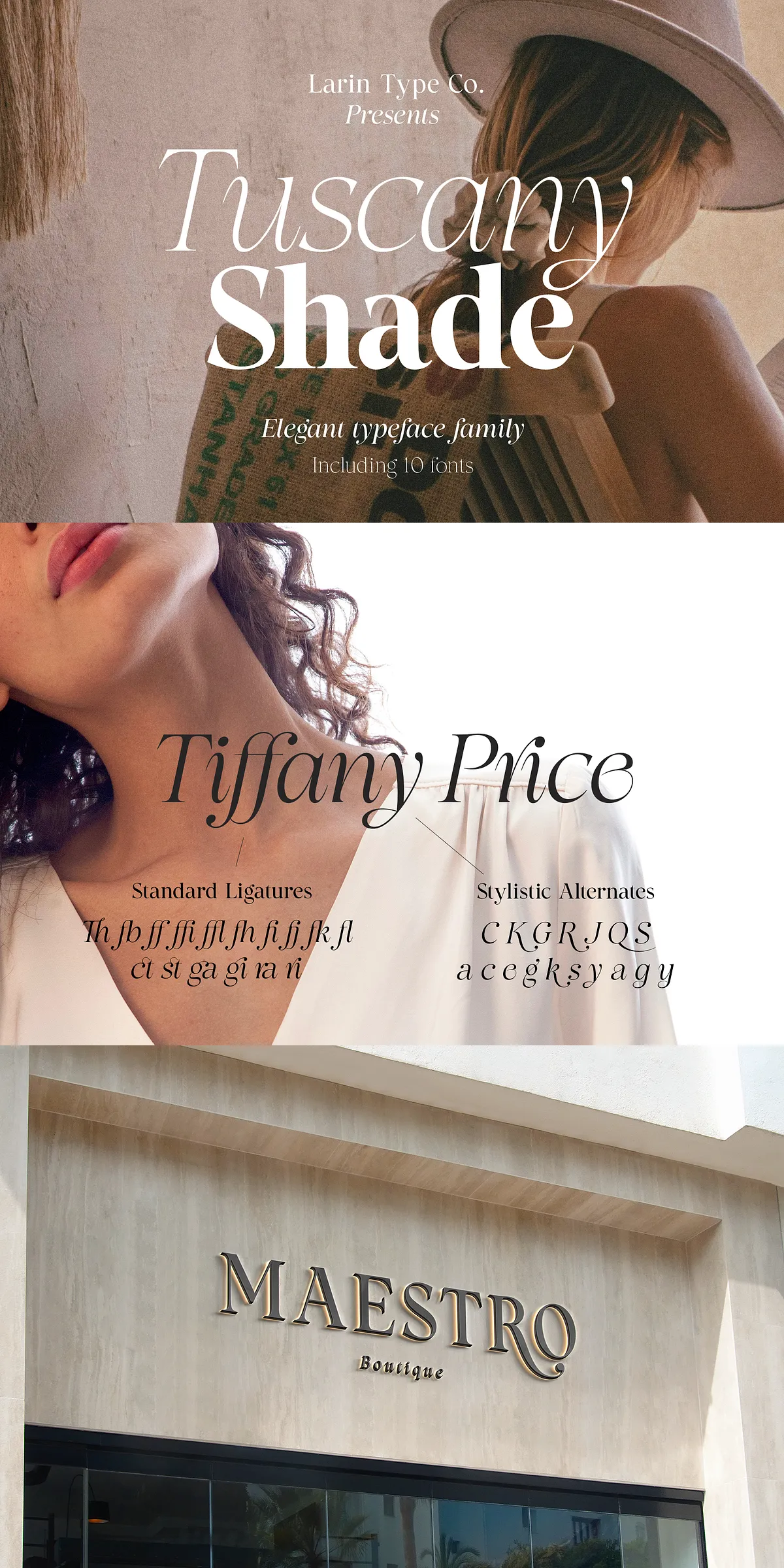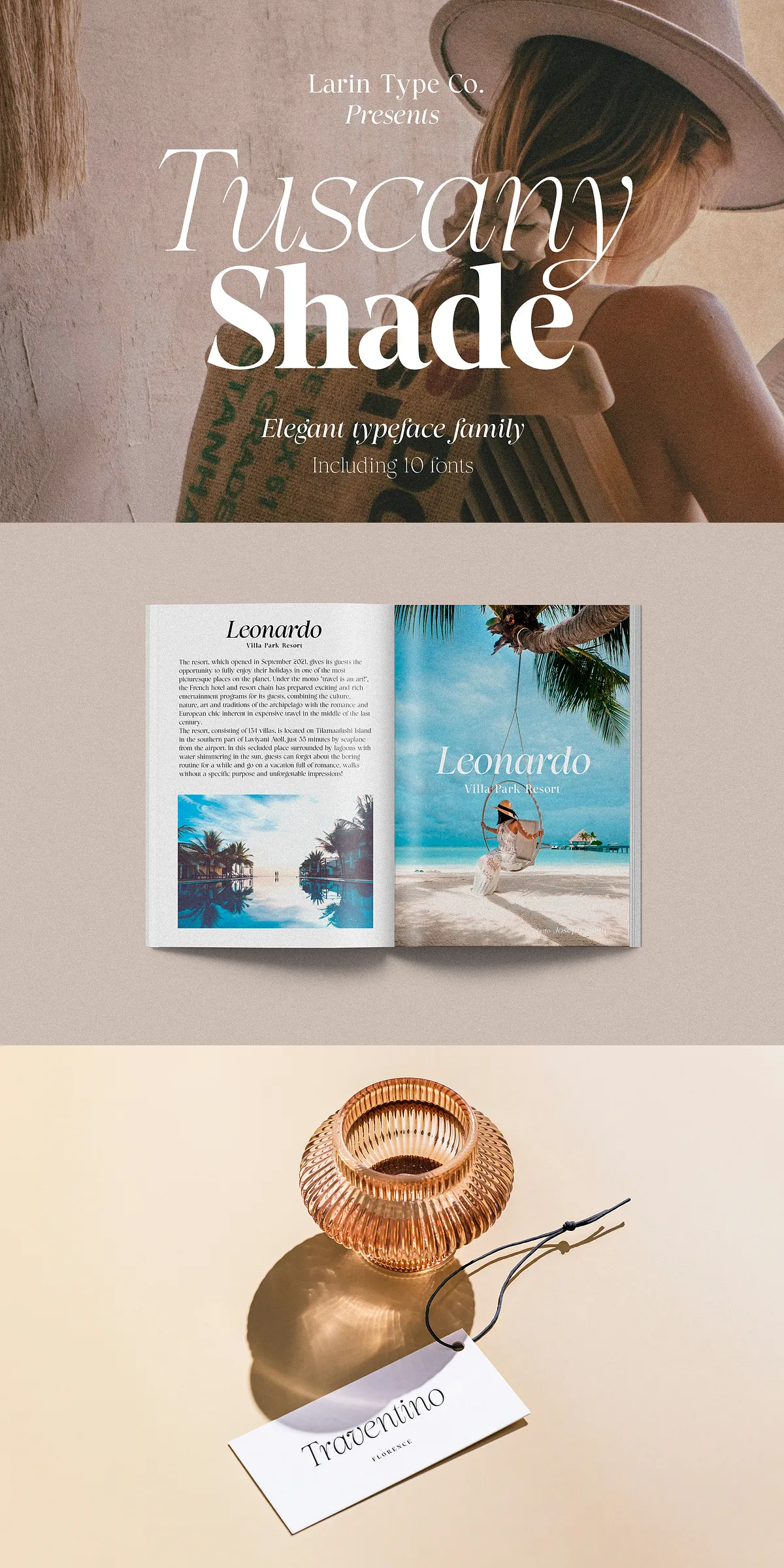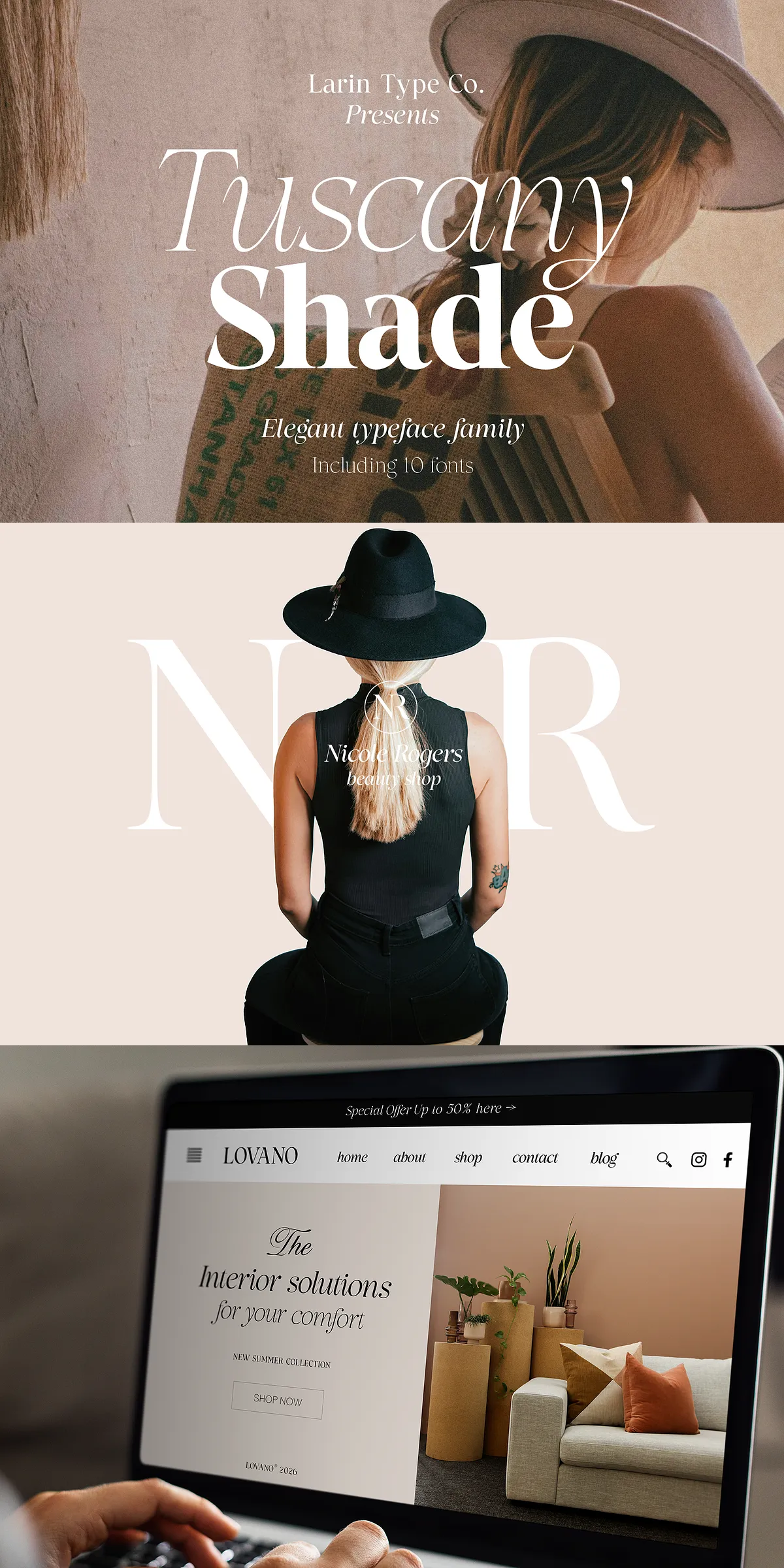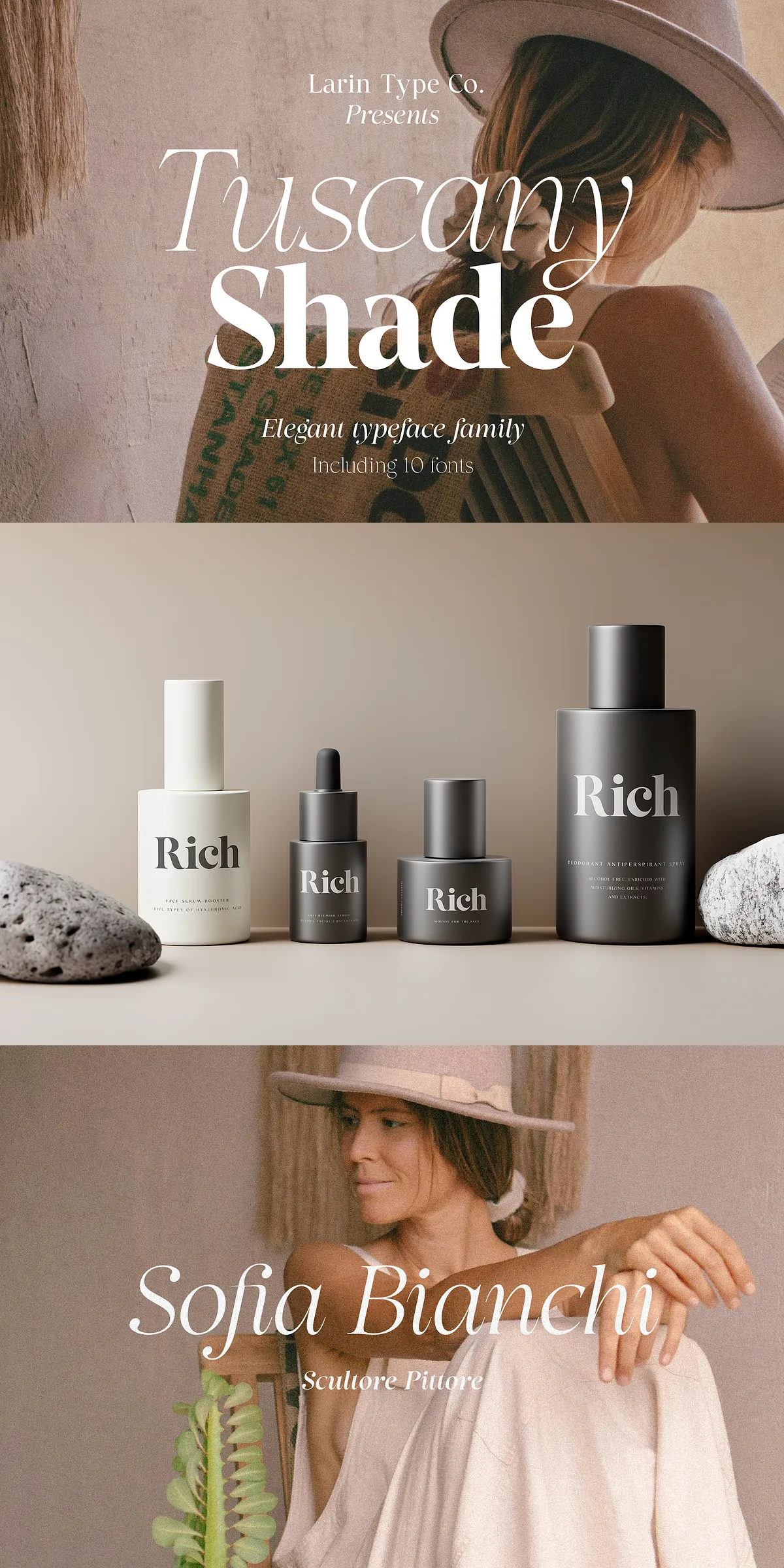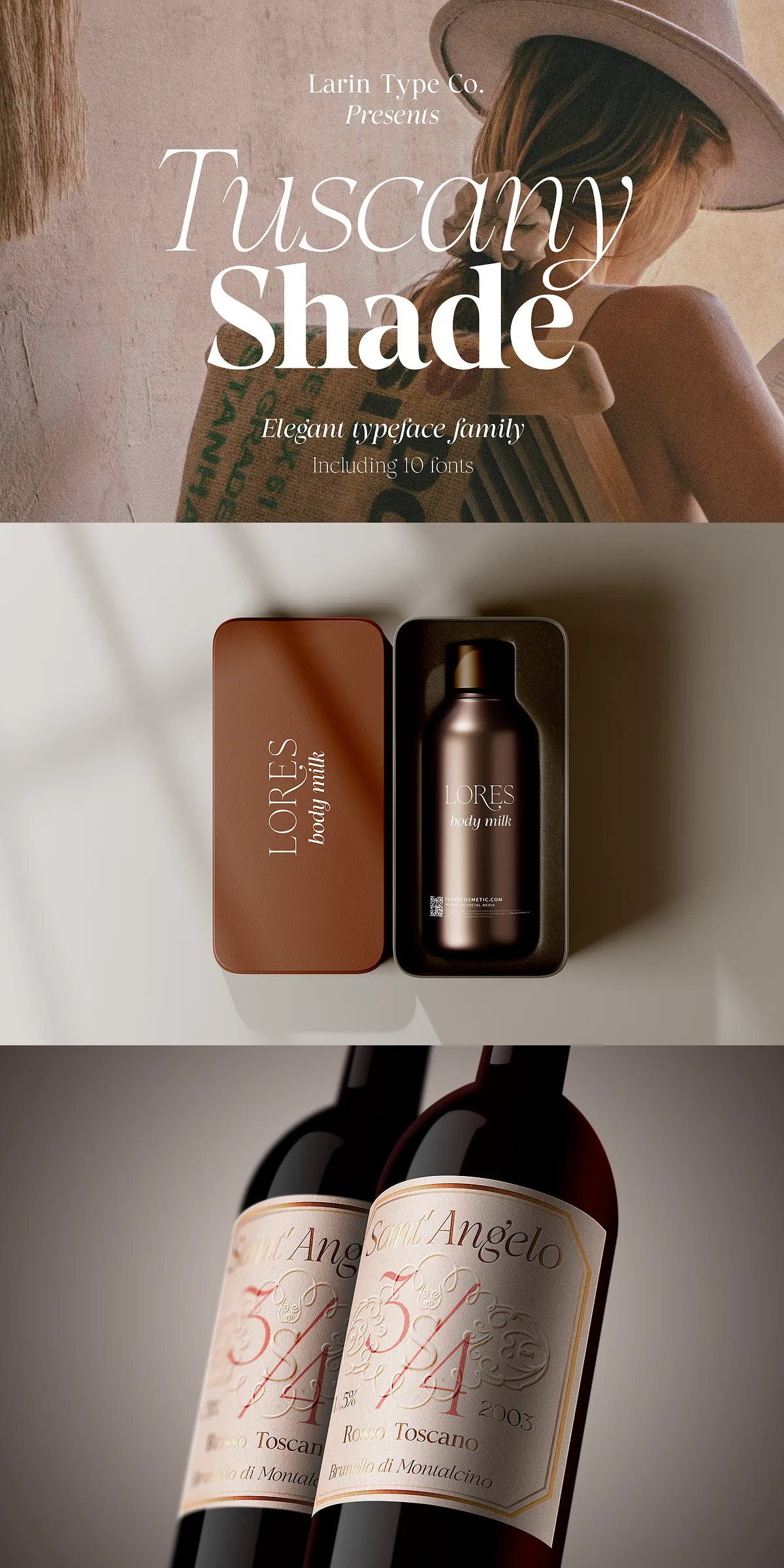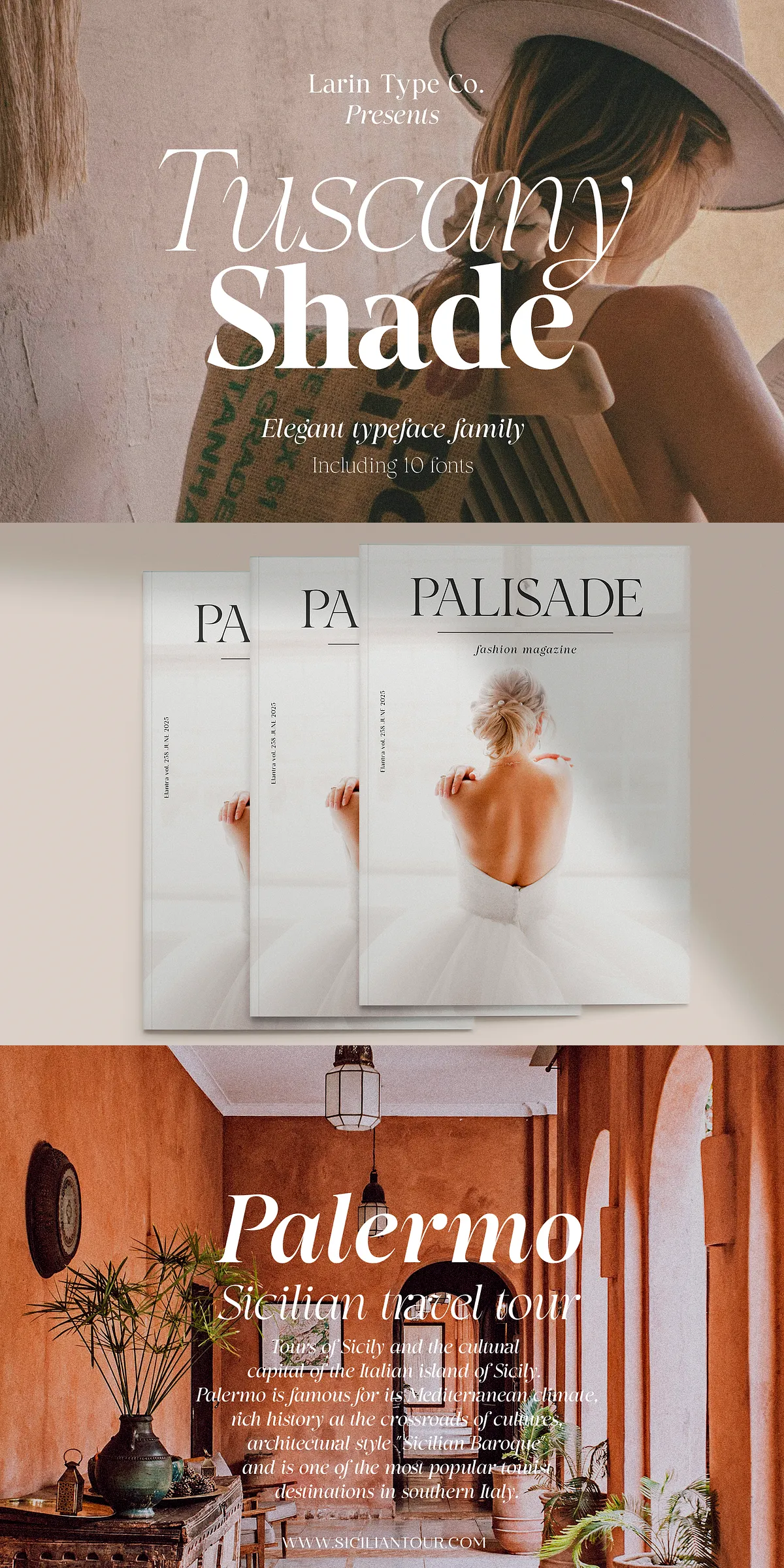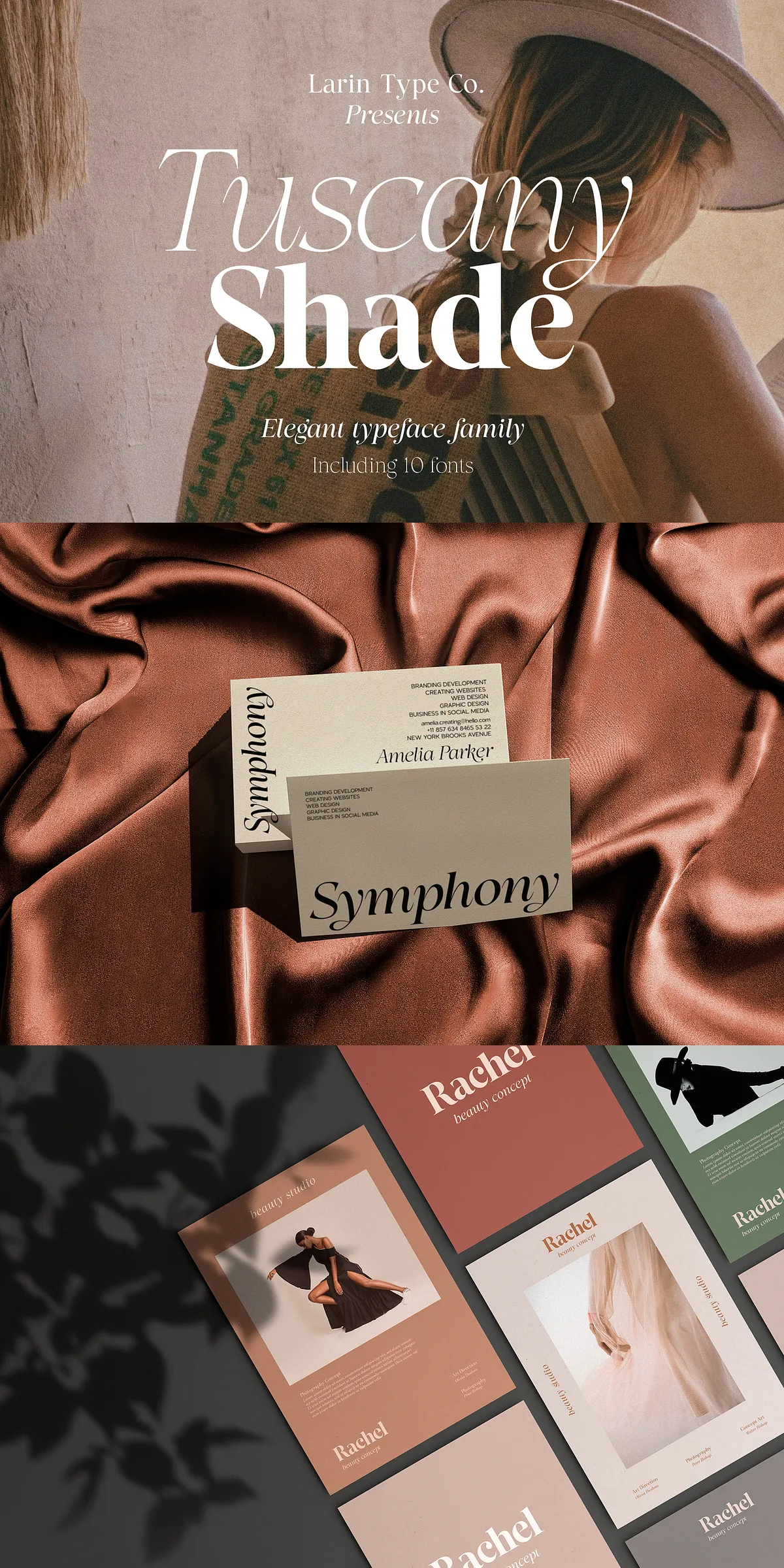
Tuscany Shade
Tuscany Shade delivers a refined, high-contrast serif voice that elevates brand identities, editorials, and packaging. Built as a multipurpose type family, it includes both Roman and true Italic styles with five weights from Extra Light through Bold. Designers will find the family fast to deploy and flexible across print and digital workflows; the letterforms read clearly at display sizes while retaining the elegant contrast that makes luxury projects sing.
Design Strengths And Visual Character That Define Tuscany Shade
Tuscany Shade emphasizes crisp vertical stress and pronounced contrast between thick and thin strokes. The result reads modern and fashion-forward while maintaining strong legibility. Its design balances personality and restraint: subtle terminals and refined curves give logos and headlines a couture feel, while the full weight range lets you sculpt hierarchy from whisper-thin captions to confident, bold headings.
True Italic And Weight Versatility Enhance Creative Control
The family pairs each Roman weight with a true Italic counterpart, allowing nuanced typographic expression. Use lighter weights for elegant body text or small captions, and deploy medium to bold weights for striking mastheads, banners, or product packaging. The Italic styles provide a natural, calligraphic contrast that works well for pull quotes, bylines, and refined subheads.
Technical Features And Glyph Support Included In The Package
• 10 distinct fonts covering five weights plus true Italic styles
• Complete upper- and lowercase alphabet A–z
• Numerals, fractions, and old-style figures
• Punctuation, currency symbols, and standard OpenType features
Alternates, Ligatures, And Advanced Typographic Options
The family includes curated stylistic alternates and a set of ligatures to enrich logotypes and display typography. Alternates are available for several uppercase and lowercase characters to help you craft distinctive wordmarks and headlines:
• Uppercase alternates: C, G, S, J, Q, K, R
• Lowercase alternates: a, c, e, g, k, s, y
• Common ligatures: Th, ct, st, ga, gi, ra, ri, ff, fj, fi, ffi, ffl, fl, fb, fk, fh
Language Coverage And Character Set For International Projects
Tuscany Shade supports a broad set of Latin-based languages and international characters so you can deploy it confidently in multilingual campaigns. The delivered character set includes accented glyphs and extended Latin support, for example: ÀÁÂÃÄÅĄÇĆÈÉÊËĘÌÍÎÏÐÑŃŁÒÓÔÕÖØÙÚÛÜŚŠŸÝŹŻŽßàáâãäåçèéêëìíîïðñòóôõöøùúûüýÿąćęłńśšźżž
Recommended Use Cases And Practical Application Tips
Deploy Tuscany Shade where elegance and clarity matter. It excels for fashion brands, editorial covers, luxury packaging, high-end branding, invitations, and product labels. For maximum impact, pair Tuscany Shade with a minimal geometric sans to balance contrast and preserve readability in long-form layouts. Use lighter weights for extended body copy at larger sizes, and reserve heavier weights for display usage and wordmarks.